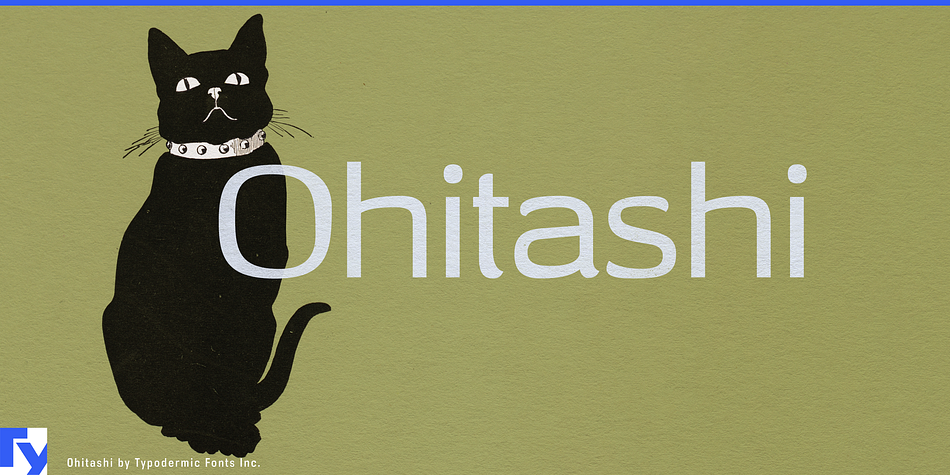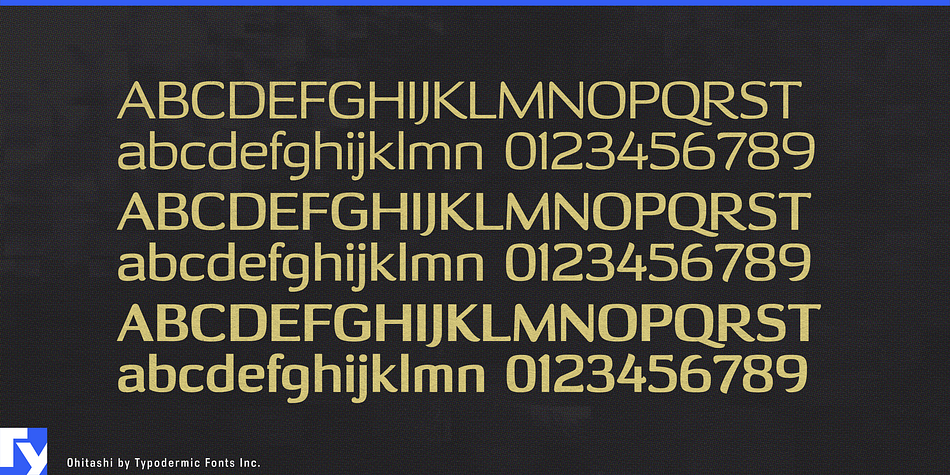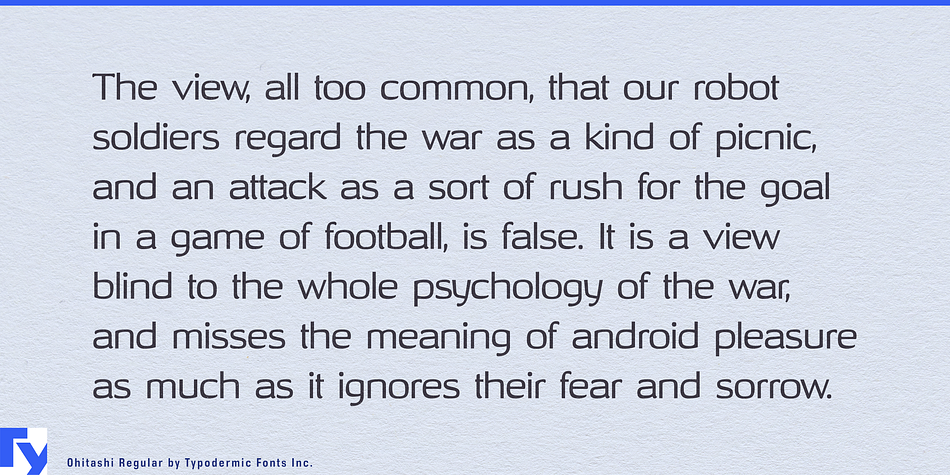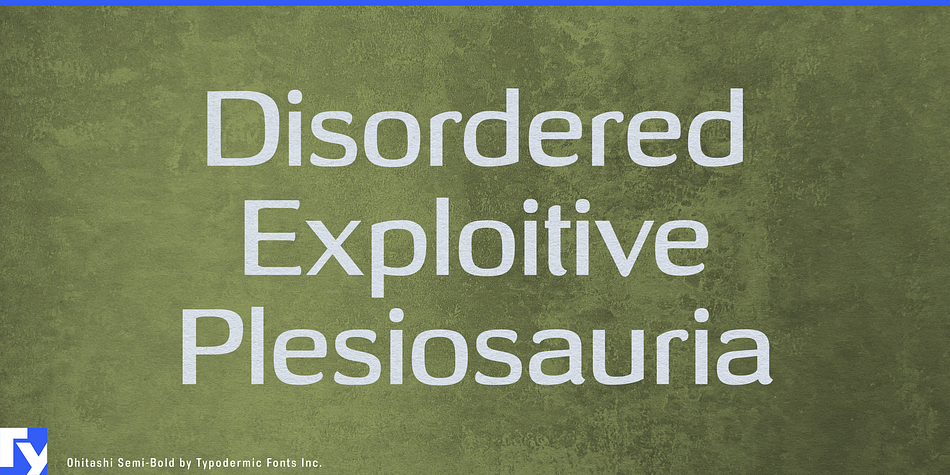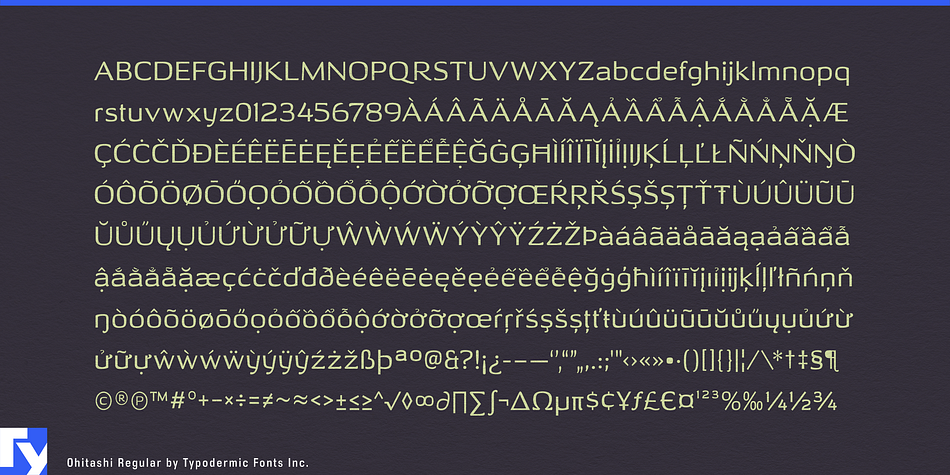
Ohitashi is a sans serif font family. This typeface has three styles and was published by Typodermic Fonts Inc.
Wide sans serif display fonts are nothing new. The reductive qualities of recent sans serif types aren’t much newer. But how far can a design trend go before running out of steam? Steam power was the last thing Typodermic principal Ray Larabie had in mind when creating Ohitashi. Humanistic stroke contrast combined with organic licks and curls set off by incised detail save this font from the cul de sac endorsed by reductive rivals. Three weight—regular, semi-bold and bold—give Ohitashi practical range.